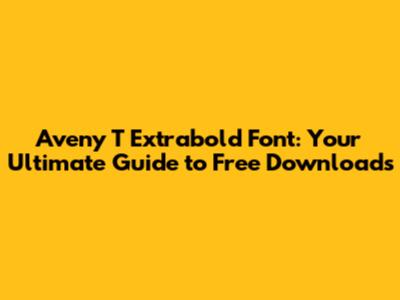
Aveny T Extrabold Font: Free Download & Guide
Hey guys! Are you on the hunt for a bold, eye-catching font that screams personality? Look no further than Aveny T Extrabold! This font is a real showstopper, perfect for everything from headlines and posters to branding and website design. And the best part? You can often find it available for free download. In this comprehensive guide, we'll dive deep into everything you need to know about Aveny T Extrabold, including where to find it, how to install it, and how to use it to create stunning designs. Get ready to supercharge your typography game!
What Makes Aveny T Extrabold So Special?
So, what's all the fuss about? Well, Aveny T Extrabold is a display font that's known for its incredibly thick strokes and powerful presence. It's the kind of font that immediately grabs your attention and leaves a lasting impression. Think of it as the heavyweight champion of the font world. The design is clean, modern, and versatile, making it suitable for a wide range of projects. Whether you're designing a logo, creating a social media graphic, or putting together a website header, Aveny T Extrabold will help you make a bold statement. Its extra-bold weight ensures that your text is highly readable, even at larger sizes, and its contemporary style keeps your designs feeling fresh and current. This font is a fantastic choice if you want to emphasize a particular word or phrase. It adds a touch of sophistication to your work, giving it a professional and polished look. The font's strong personality is ideal for projects that require a touch of confidence and a commanding presence. It's a fantastic tool for designers looking to create impact. The font's legibility is also a huge plus. It’s important to select fonts that are easy to read, especially in today's fast-paced digital world, where users scan content quickly. Using Aveny T Extrabold ensures your message is clear and immediately understood.
Key Features and Characteristics
• Bold and impactful: The primary characteristic of Aveny T Extrabold is its extreme boldness. This is what sets it apart and makes it stand out in a crowd. It’s designed to make a statement, perfect for grabbing attention. Think headlines, titles, and anything that needs to be noticed. The thick strokes create a visual weight that is immediately noticeable.
• Modern design: Aveny T Extrabold has a clean, contemporary feel. Its simple design is both versatile and timeless. It's not cluttered or overly stylized. This clean aesthetic allows it to work seamlessly in a variety of design contexts, from minimalist websites to dynamic marketing materials.
• High readability: Despite its bold weight, Aveny T Extrabold is surprisingly readable, even at large sizes. This is a crucial feature, especially for display fonts. The legibility ensures that your message is communicated clearly and effectively.
• Versatility: Aveny T Extrabold is a flexible font. It can be used in numerous applications, including logos, posters, web design, and print materials. This versatility is a major advantage. It saves you the hassle of having to switch fonts for different elements within the same design.
• Impactful presence: This font has an undeniable presence. It conveys confidence and authority, making it ideal for brands and projects that want to project a strong image. It's excellent for making a memorable impression on your audience.